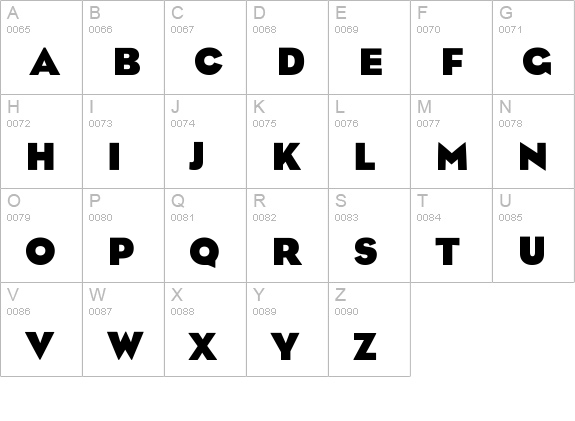
EagleNummerEins Font Details
EagleNummerEins font is a stunning and versatile typeface that embodies elegance and sophistication. With its polished and meticulously crafted letterforms, this font truly stands out in any design project. Its sleek and modern design makes it suitable for a wide range of applications, from branding and packaging to editorial and web design. What sets EagleNummerEins font apart is not only its aesthetic appeal, but also the fact that it is available for free. Yes, you heard it right - this exceptional font can be downloaded without any cost. You can easily access and enjoy this font by visiting FontsMarket.com, where it is freely available for download. Whether you are a professional graphic designer or a creative enthusiast, EagleNummerEins font is a must-have in your font library. Its versatility allows you to create stunning and captivating designs that will leave a lasting impression on your audience. The attention to detail in EagleNummerEins font is truly remarkable. Each curve and stroke has been carefully crafted to ensure a harmonious and balanced appearance. The result is a font that exudes confidence and elegance, making it perfect for both headline and body text use. With its wide range of weights and styles, EagleNummerEins font offers endless possibilities for creative expression. Whether you want to create bold and impactful headlines or delicate and refined body text, this font has got you covered. In conclusion, EagleNummerEins font is a remarkable typeface that combines elegance, versatility, and affordability. Its stunning design and availability as a free download at FontsMarket.com make it a valuable addition to any designer's toolkit. Elevate your designs and captivate your audience with the timeless beauty of EagleNummerEins font.